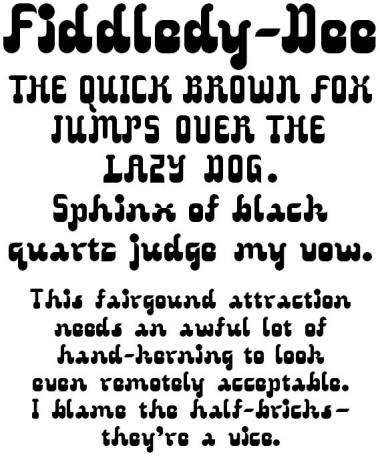
Sweet and psychedelic small-scale ’structing, tag!
Reminds me of another favorite of mine, Basmachi, but smoooooooth. Love the K, X, a and g/q.
I think the B and R would benefit from that brickstacking detail you worked into the knee of the K. While nice on its own terms, the p fits this theme better with a fat baseline stroke.
The singular legibility issue is still a doozy: the e. You already found the best possible solution. Flipping the terminal so it points down provides a modicum of improvement, but any minor legibility gain is a wash since it’s perhaps too big a stylistic departure. Hey, it still works at display sizes. :-)
Would it be worth moving the letter spacing of the q a bit to the left?
Looking it more closely, I'd experiment with fattening the bottom of the p, to match the q.
I like that funky z.